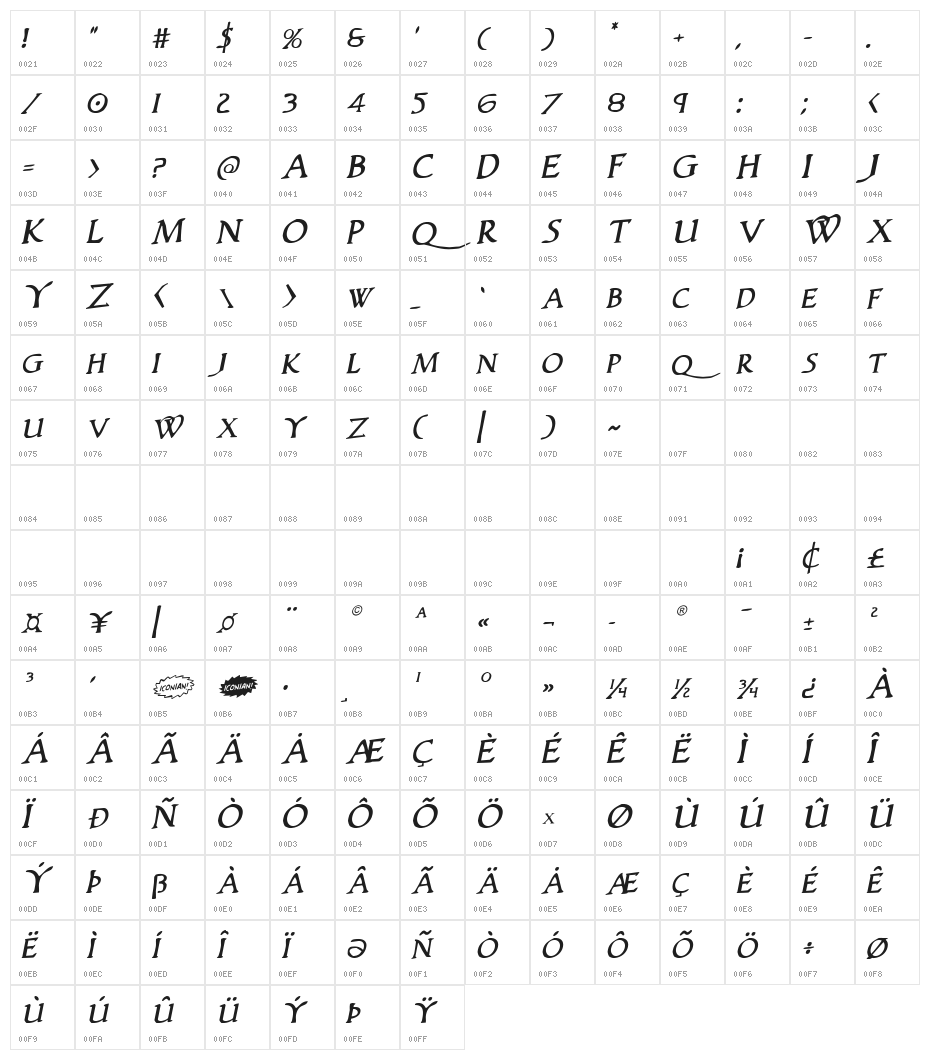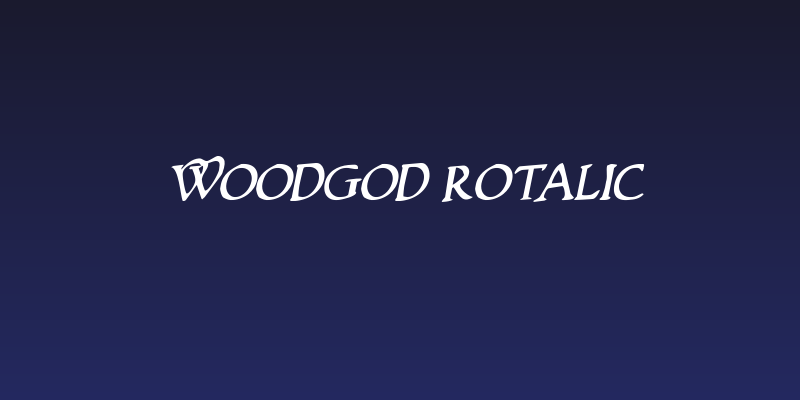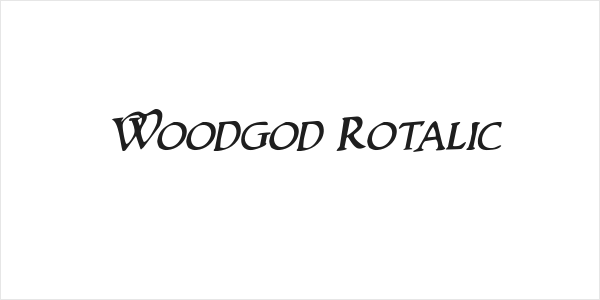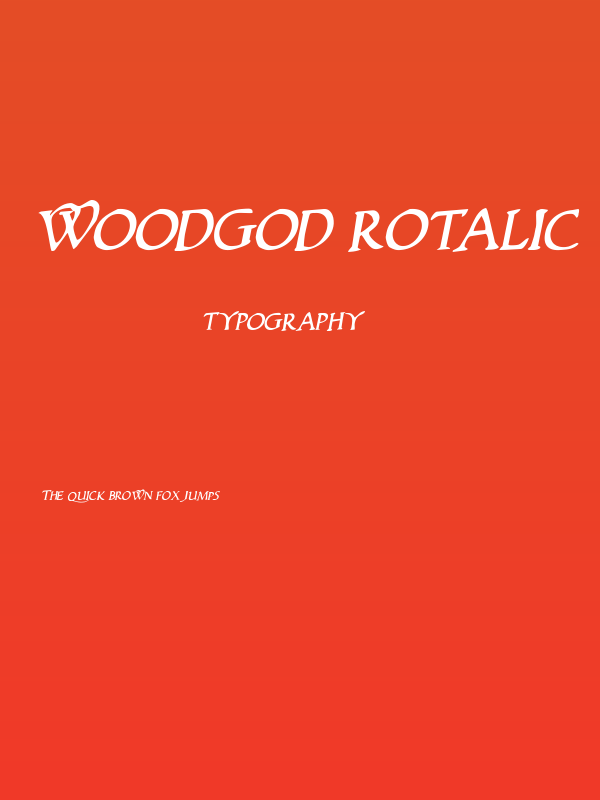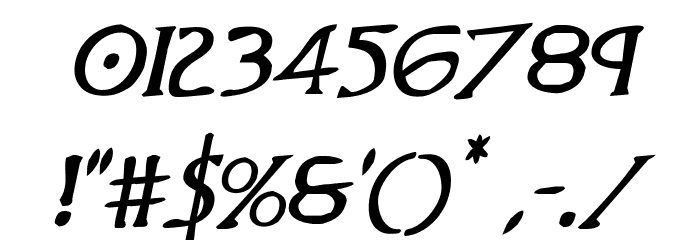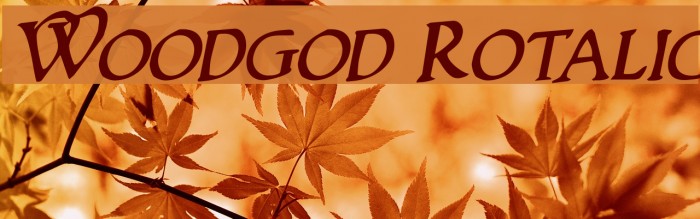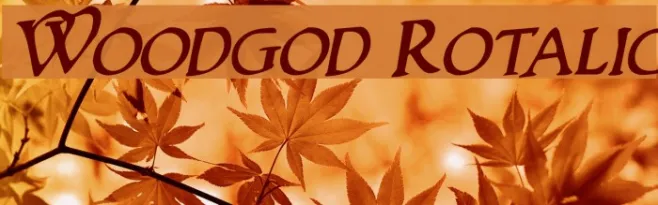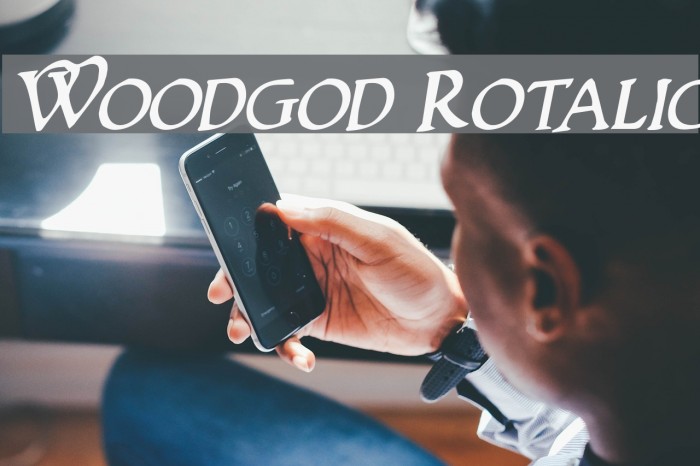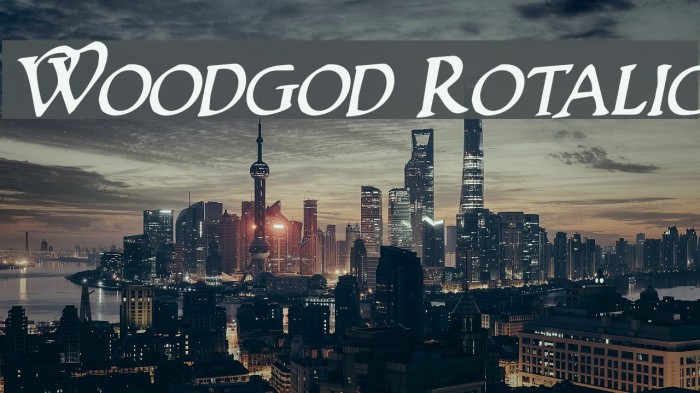
Woodgod Rotalic Font
Woodgod Rotalic Description
This font features a dynamic and flowing italic style, characterized by its sharp, angular serifs and a slight slant that gives it a sense of motion and elegance. The letters are well-defined with a moderate contrast between thick and thin strokes, creating a visually striking appearance. The uppercase letters have a distinctive flair, with some characters like 'Q' and 'W' featuring unique, decorative elements. The numerals are bold and clear, maintaining the same italicized style. Special characters are included, adding versatility to the font's application.
| Name | Woodgod Rotalic |
| Proposed Projects | Ideal for branding, headlines, posters, and any project requiring a bold, elegant touch. |